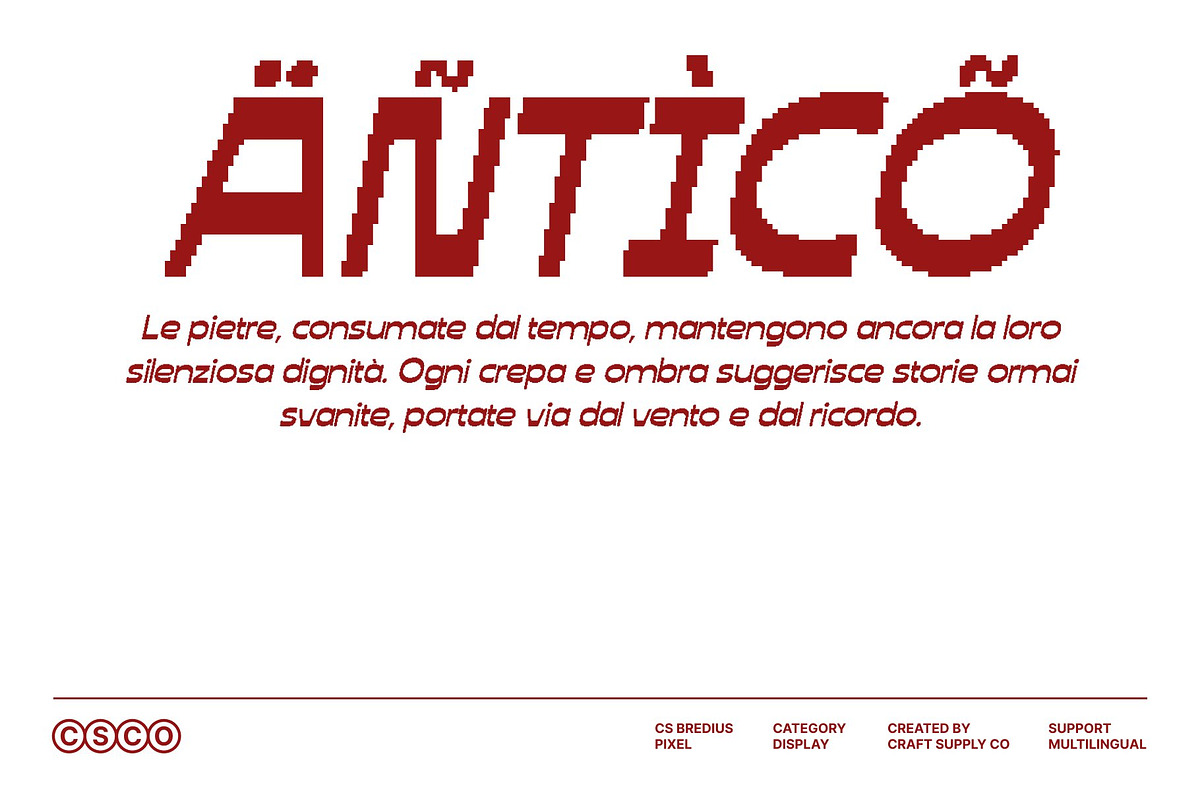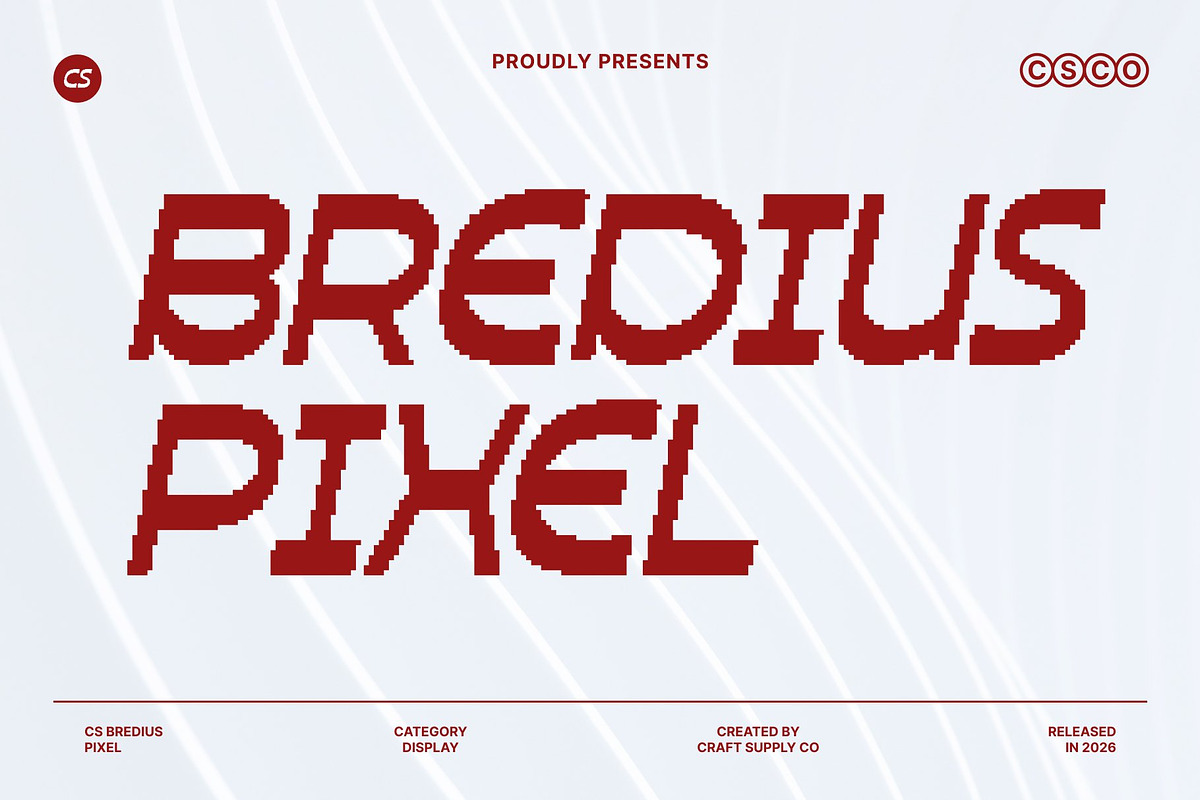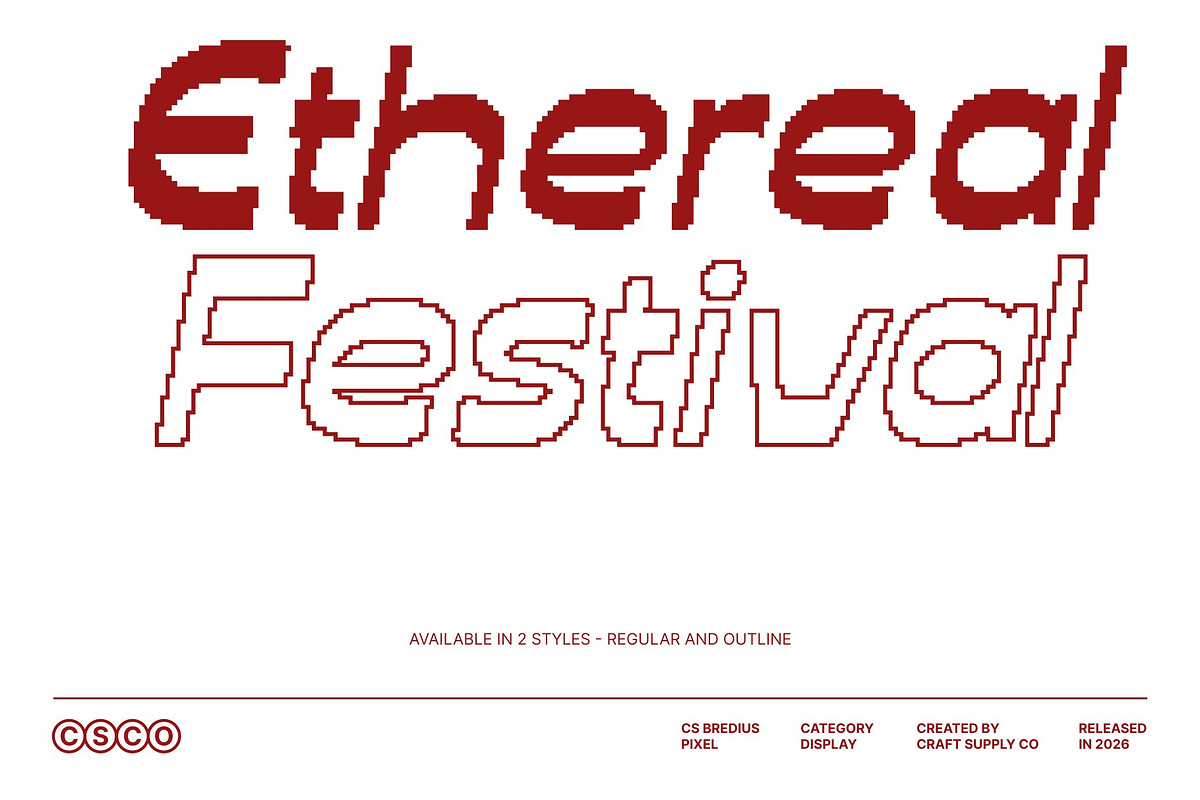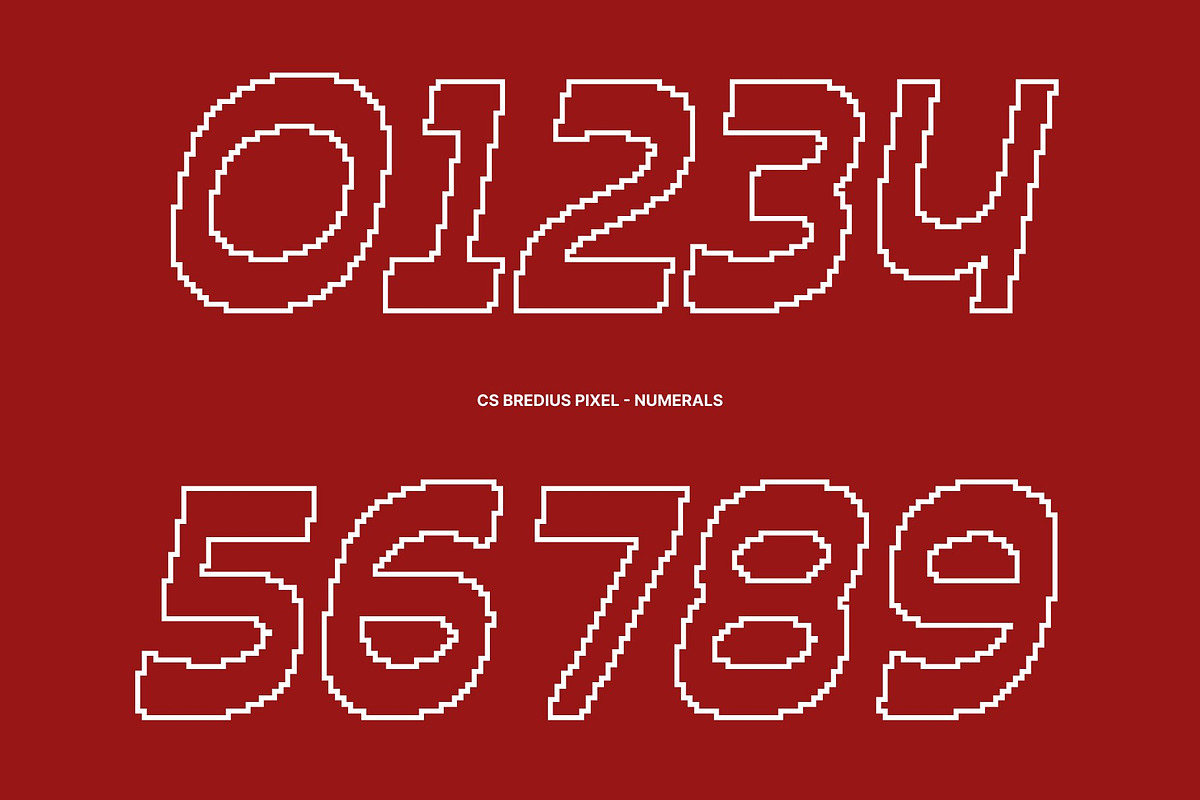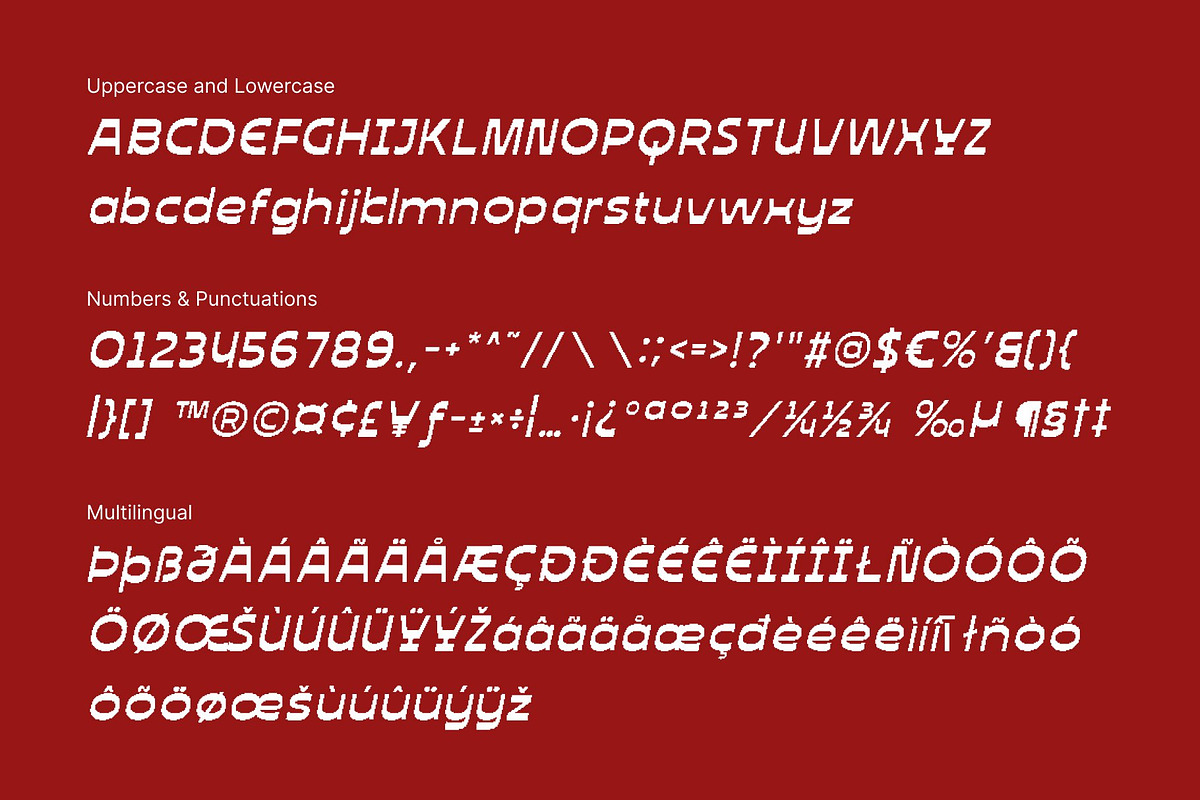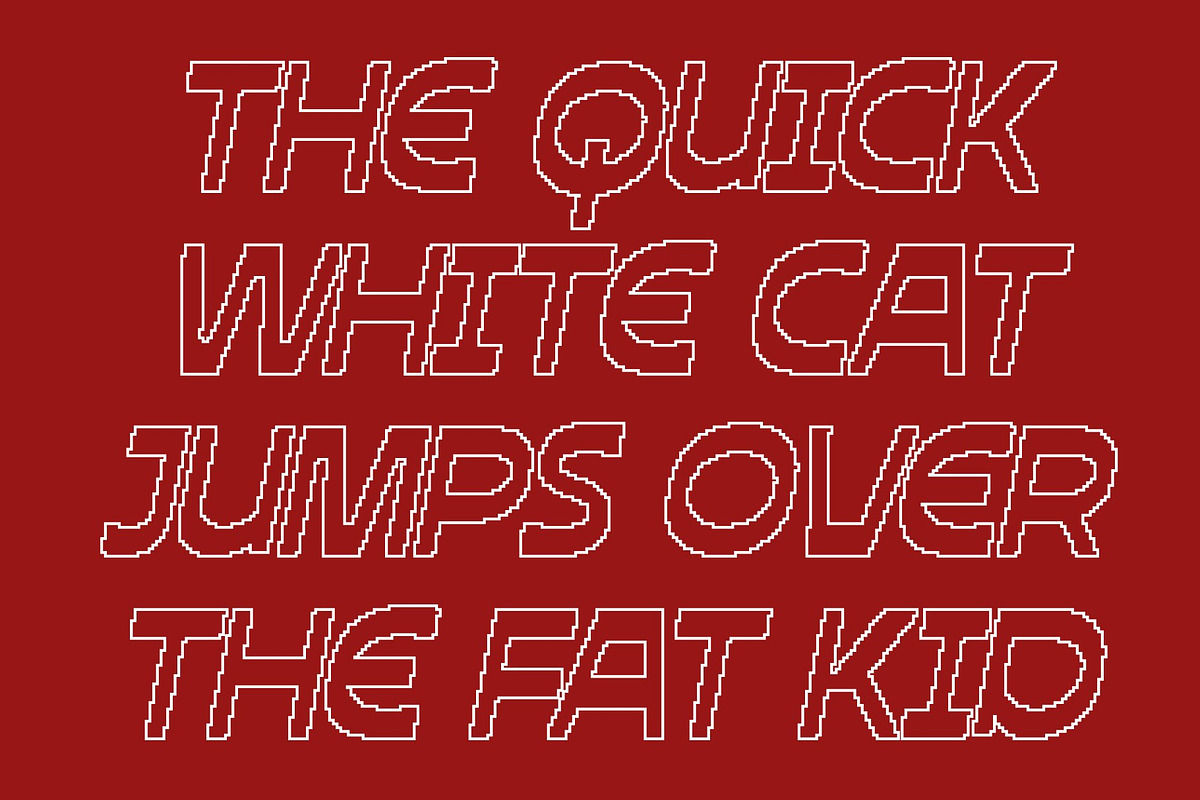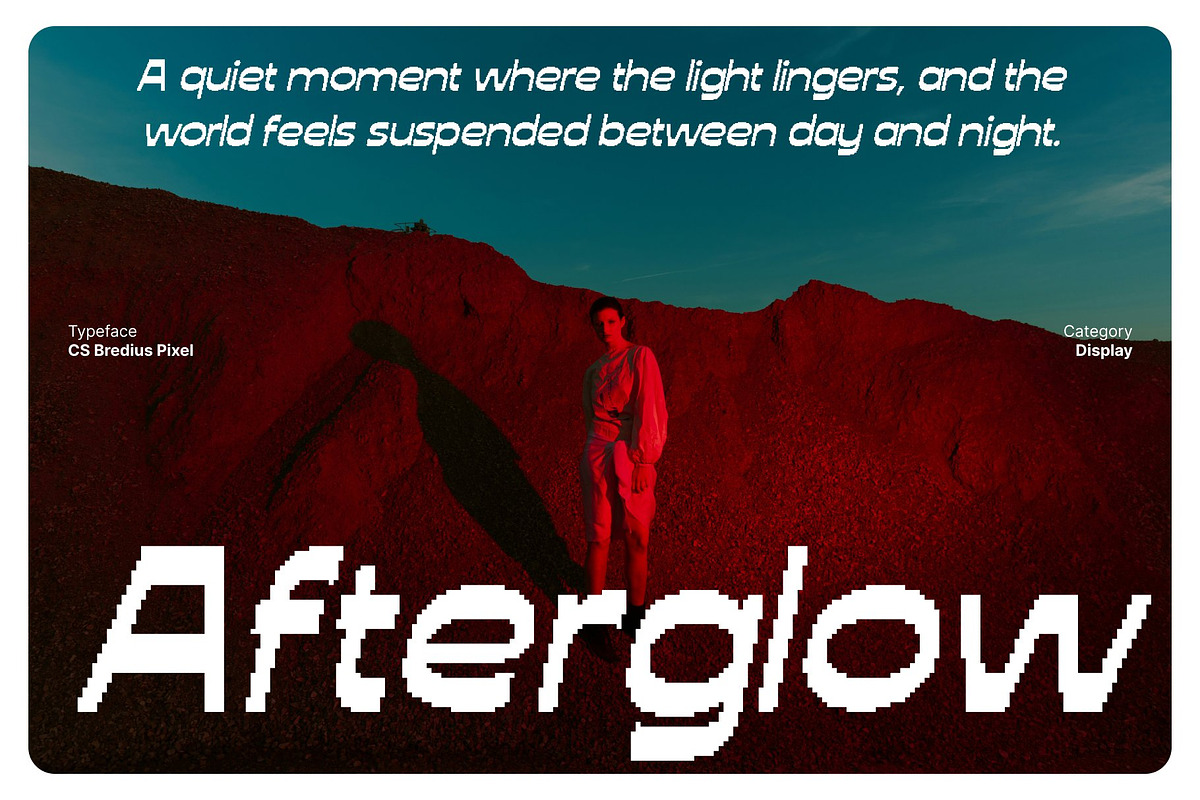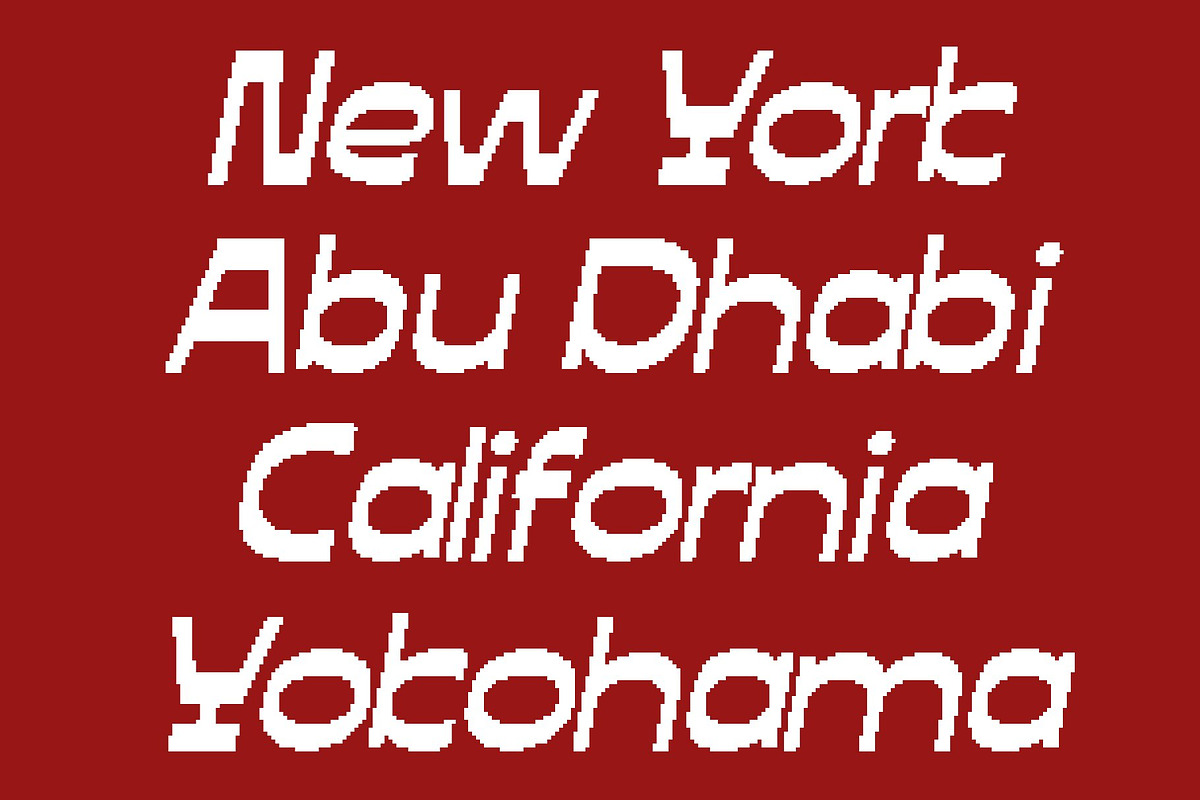
CS Bredius Pixel
CS Bredius Pixel – Quirky Personality with Creative Charm
Playful Pixel Display with Expressive Character This is a cheerful display font that transforms playful typography into a bold pixel-driven style. Built with expressive shapes and an unconventional rhythm, this font delivers a fun, energetic presence inspired by retro digital visuals. Its pixel construction adds a nostalgic edge while amplifying the font’s creative and joyful personality.
Unusual Pixel Letterforms for a Distinctive Look Each character in this font is crafted with quirky proportions and irregular pixel shapes that feel lively and handcrafted. The imperfect geometry and animated structure create a unique visual rhythm, making every word feel dynamic and full of charm. This distinctive pixel approach ensures the font stands out instantly in any composition.
Perfect for Playful Digital and Creative Branding This font shines in playful branding, posters, logos, and editorial layouts that demand originality. Its bold pixel style makes it especially effective for digital projects, retro-inspired visuals, creative studios, event promotions, and youthful brand identities. This font turns simple text into an eye-catching design element.
Vibrant, Fun, and Full of Retro Energy More than just a quirky font, this font celebrates design freedom through its joyful pixel aesthetic. Its lively forms and creative rhythm bring personality and confidence to any project. Ideal for designers who want expressive, fun, and nostalgic digital typography that feels bold, playful, and impossible to ignore.
- CS Bredius Pixel Regular
- CS Bredius Pixel Outline